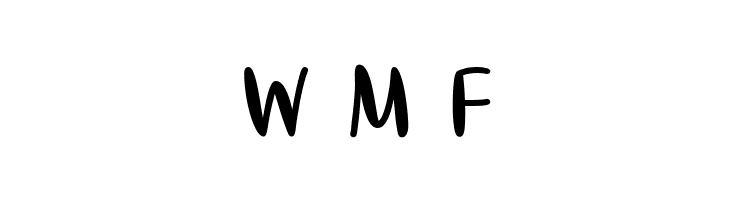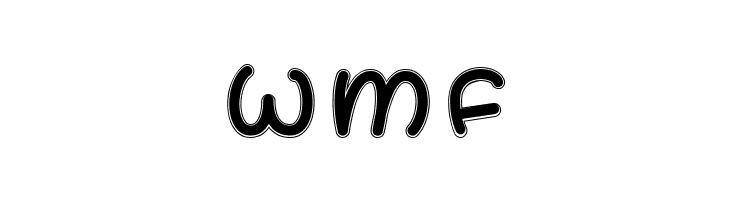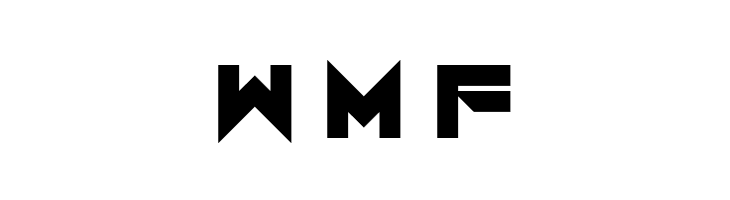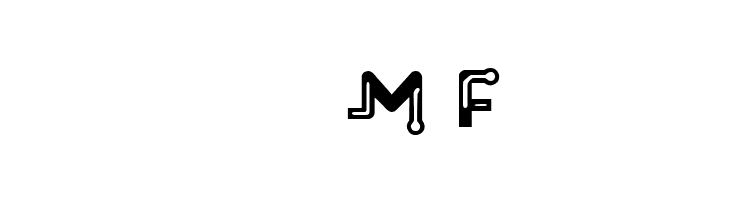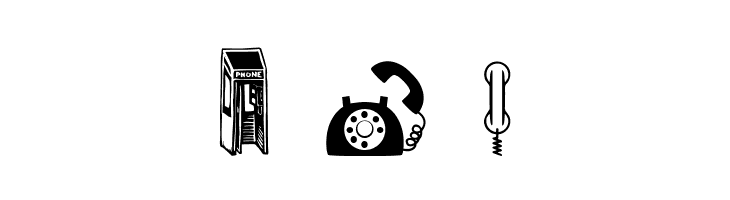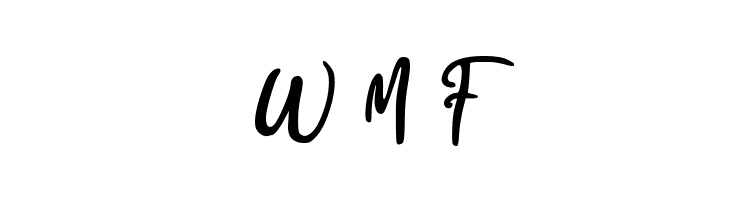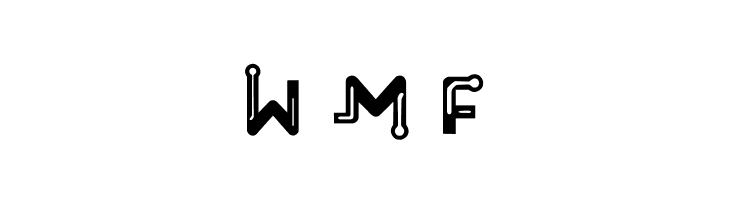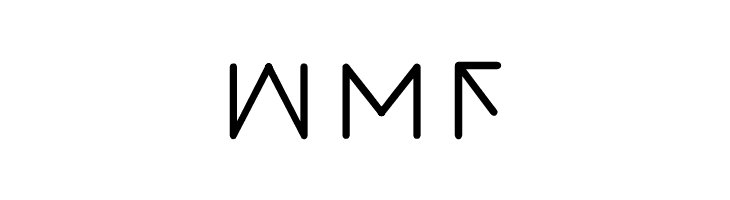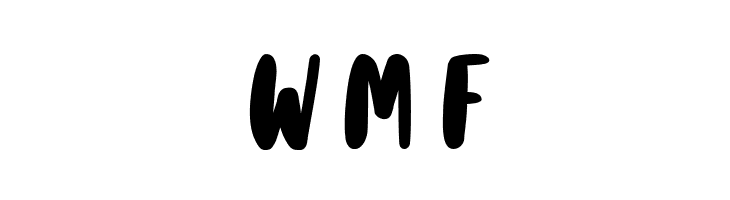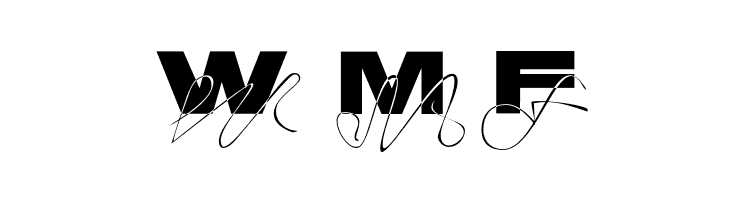
A playful, handwritten font with bold, uneven strokes and a whimsical feel.
A decorative, shattered-style font with a chaotic and dynamic appearance.
A playful and artistic font with elongated vertical strokes and bold, rounded characters.
A decorative font with winged embellishments, ideal for fantasy-themed projects.
A decorative and artistic font with intricate feather-like details.
A bold, basketball-themed font with integrated player silhouettes.
A bold, playful font with superhero-themed embellishments on each letter.
A playful, marshmallow-themed decorative font with bold, shadowed characters.
A decorative font with a playful lip pattern within each character.
A whimsical, retro-style font with elongated, thin strokes and circular embellishments.
A playful, handwritten font with heart-shaped 'O's, ideal for creative and joyful designs.
A playful, bold font with bubble-like, rounded strokes and a whimsical style.
A bold, decorative font with characters enclosed in flag-like boxes.
A playful, camping-themed decorative font with bold, whimsical characters.
A playful, cartoon-like font with bold, irregular strokes and dynamic shapes.
A bold, pixelated font with a geometric, digital style.
A pictogram font with diverse telephone and communication illustrations.
A bold, traditional blackletter font with sharp, angular lines and dramatic strokes.
A bold, expressive handwritten font with fluid, interconnected strokes.
A futuristic, circuit-inspired font with bold, geometric letterforms.
A geometric, modern font with sharp angles and a cohesive design.
A bold, playful handwritten font with rounded strokes and a whimsical style.
A jagged, horror-themed font with sharp, irregular edges.
A bold, modern font with high contrast and strong visual impact.
A rough, edgy font with sharp, jagged edges and a distressed texture.
A bold, rough, and jagged font with a hand-drawn appearance.
A bold, playful handwritten font with thick strokes and a casual, friendly appearance.
An elegant, thin script font with flowing, decorative curves.
A bold, flowing script font with elegant, cursive letterforms.
A flowing, elegant script font with a sophisticated handwritten style.
A bold, dripping font perfect for spooky and dramatic designs.
A rough, brush-style font with bold, dynamic strokes.